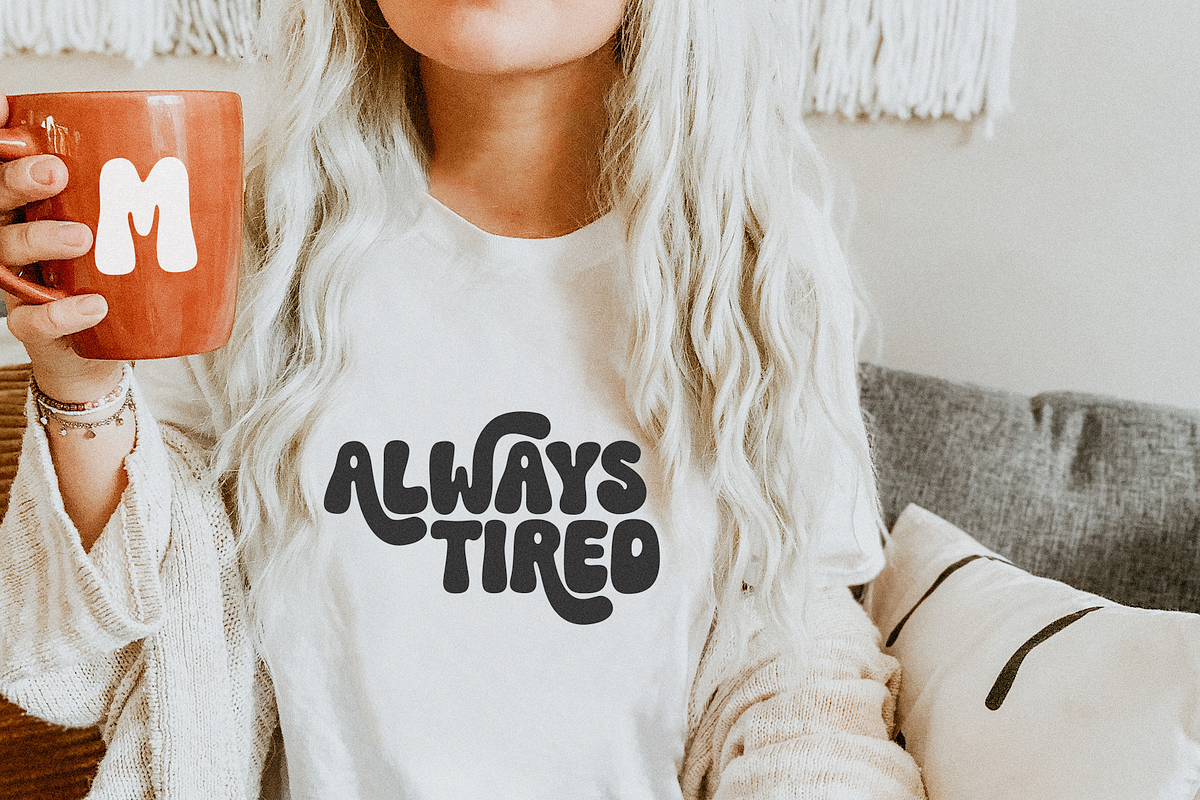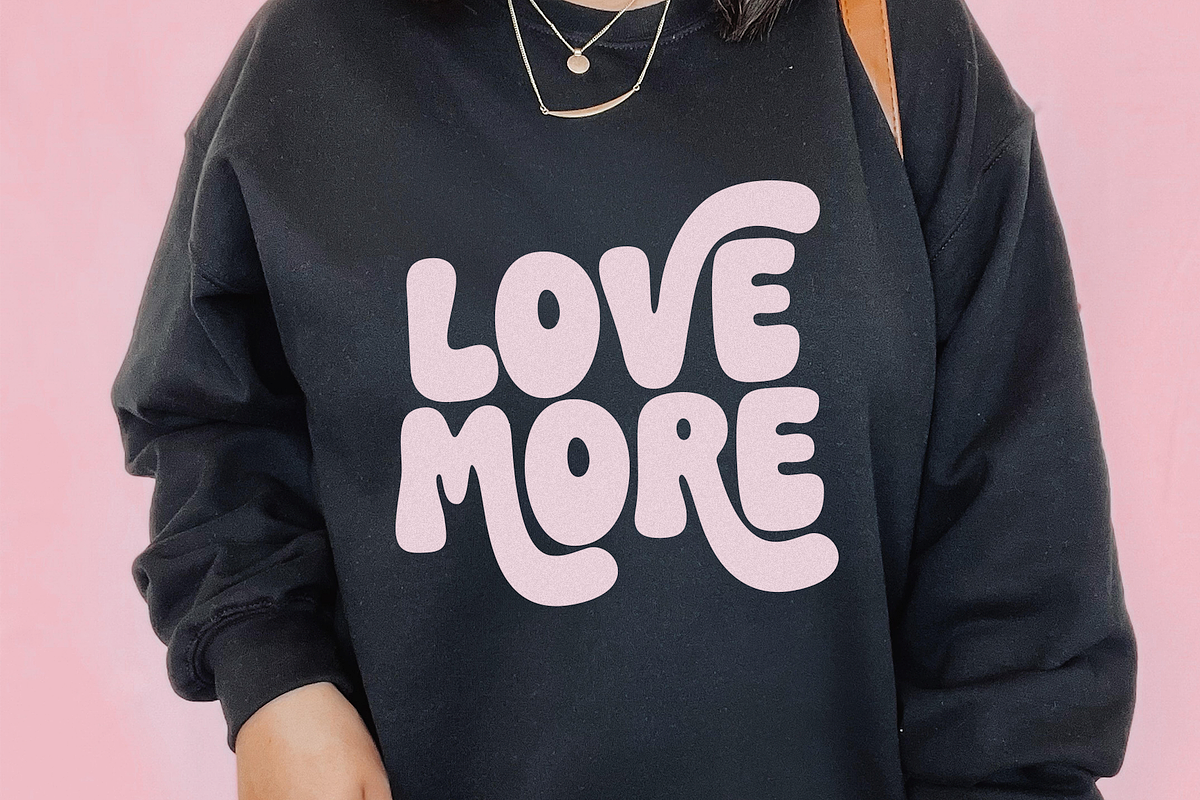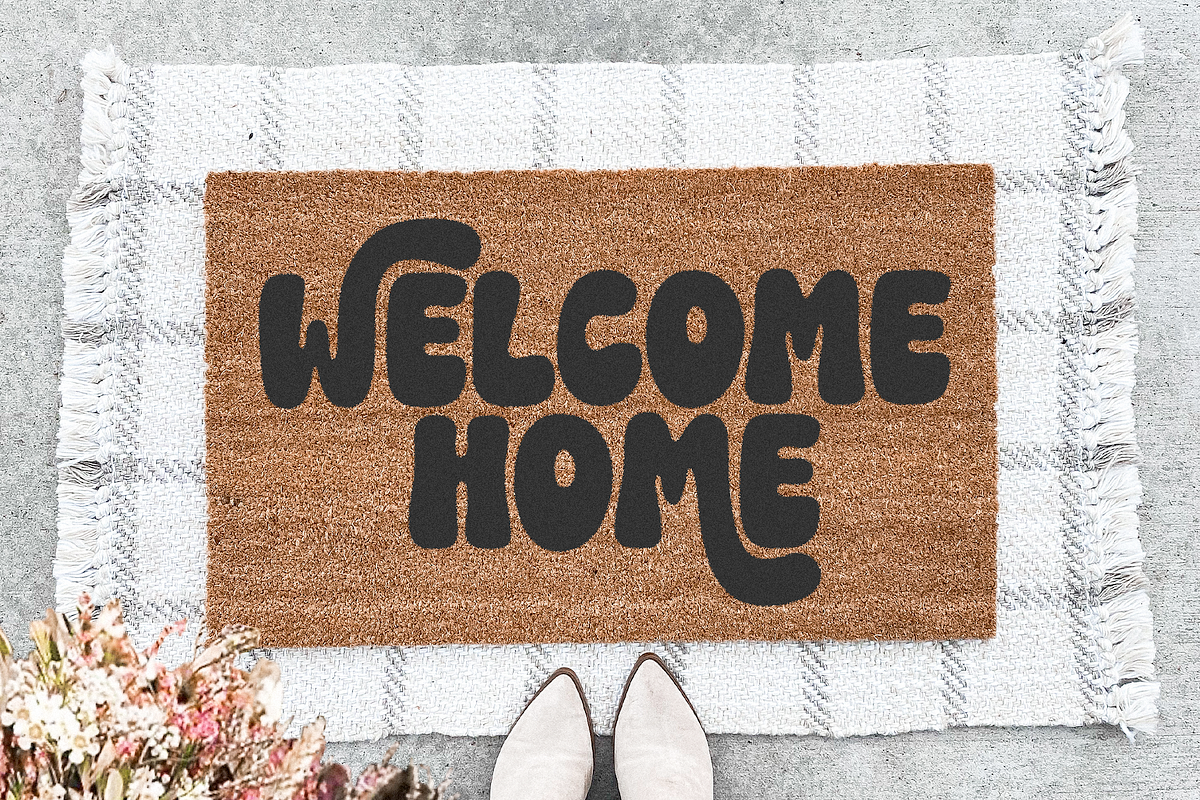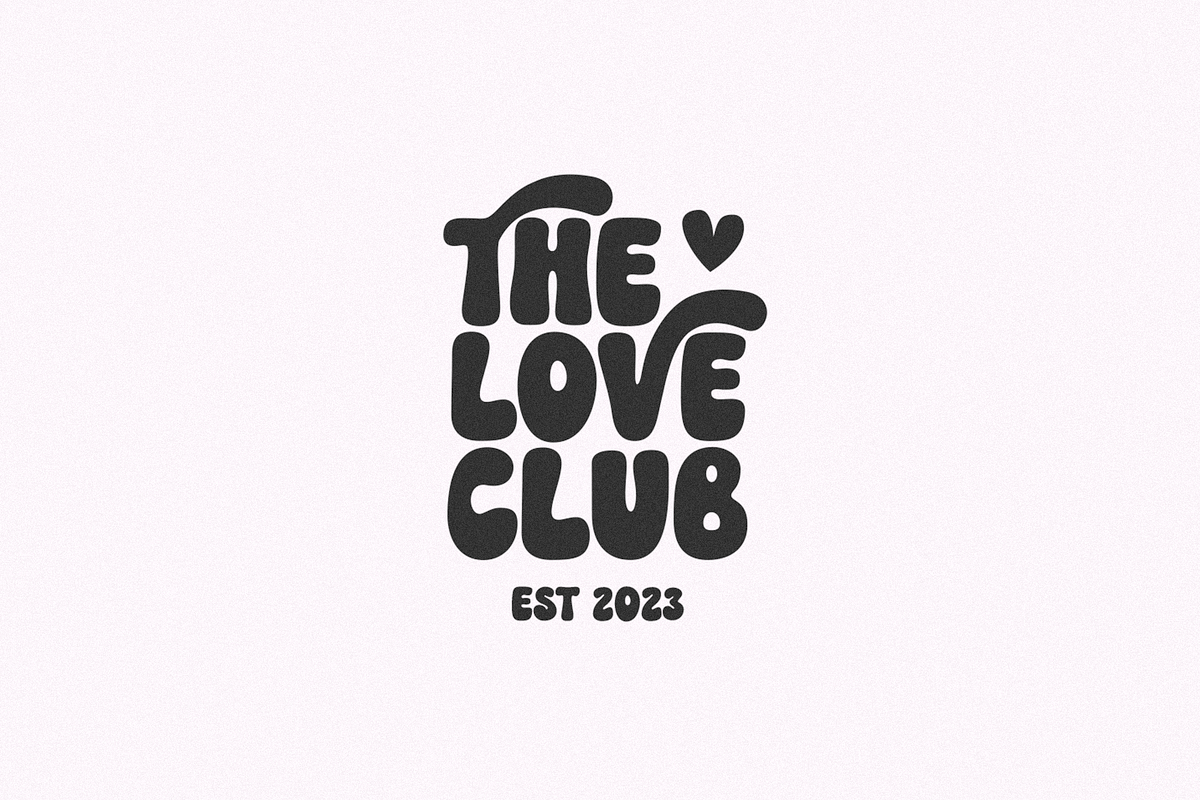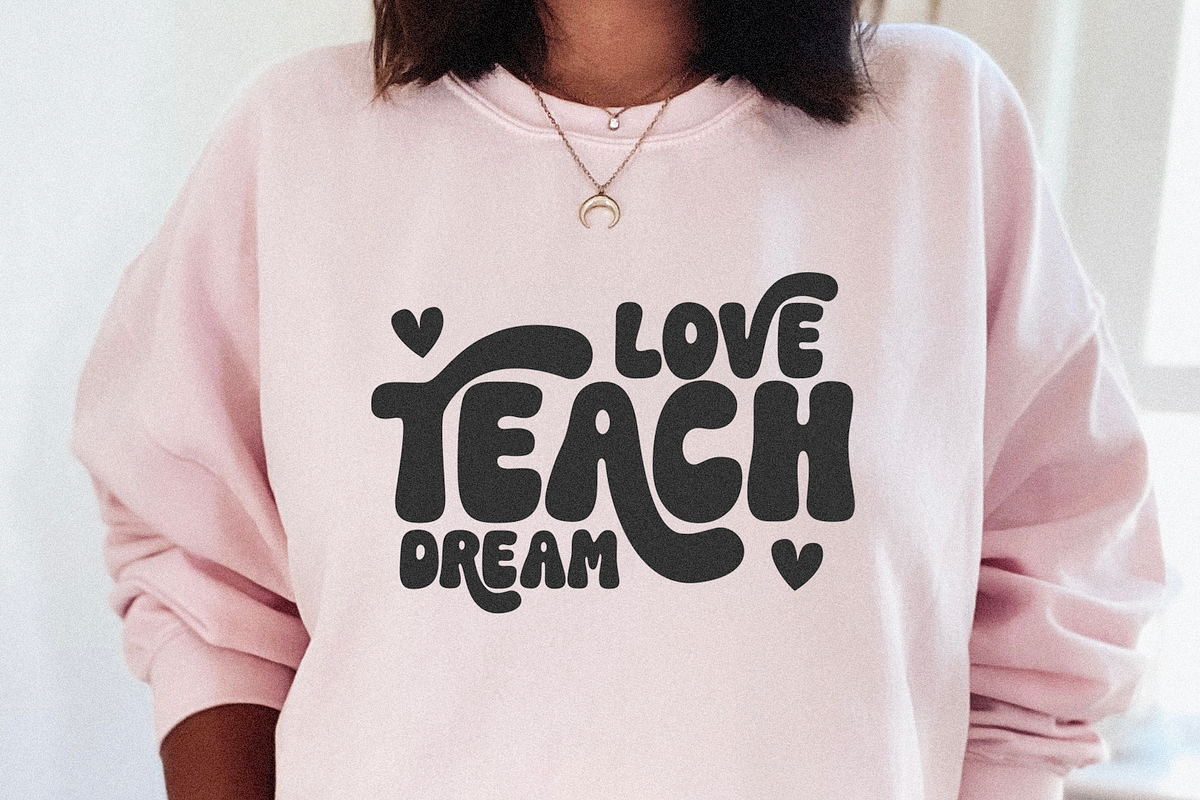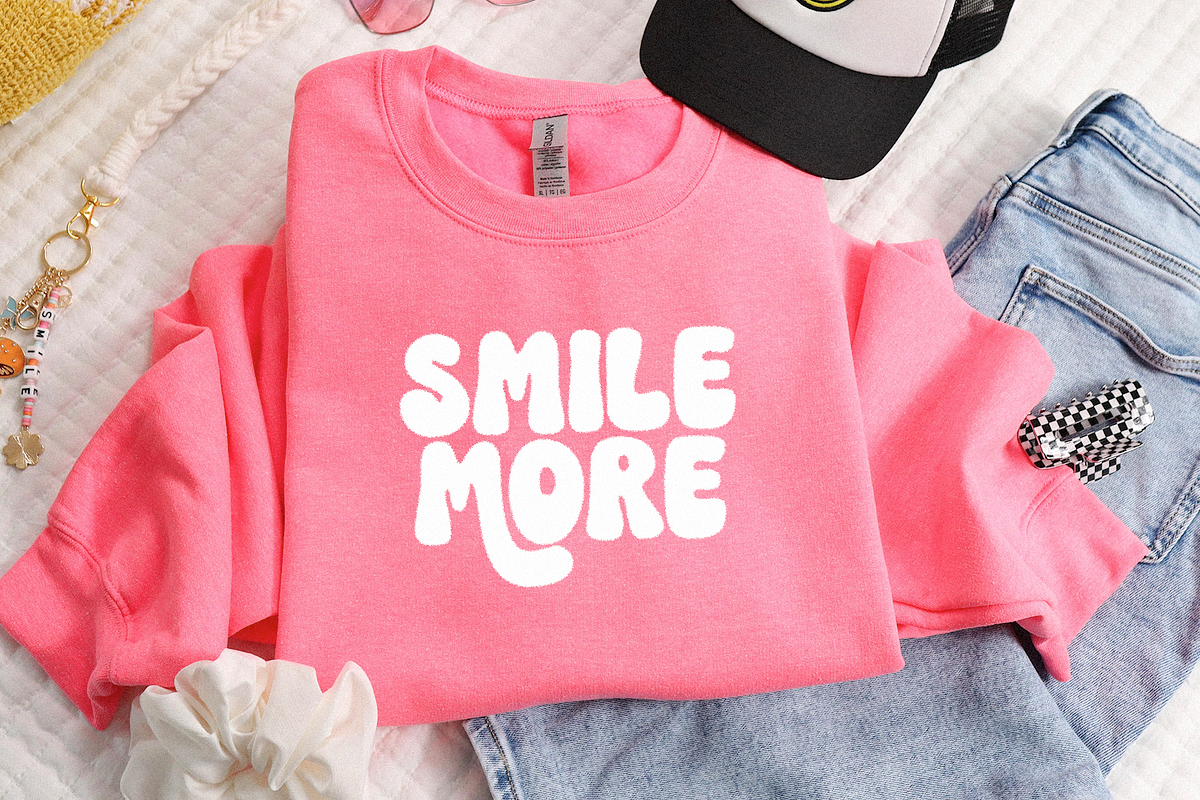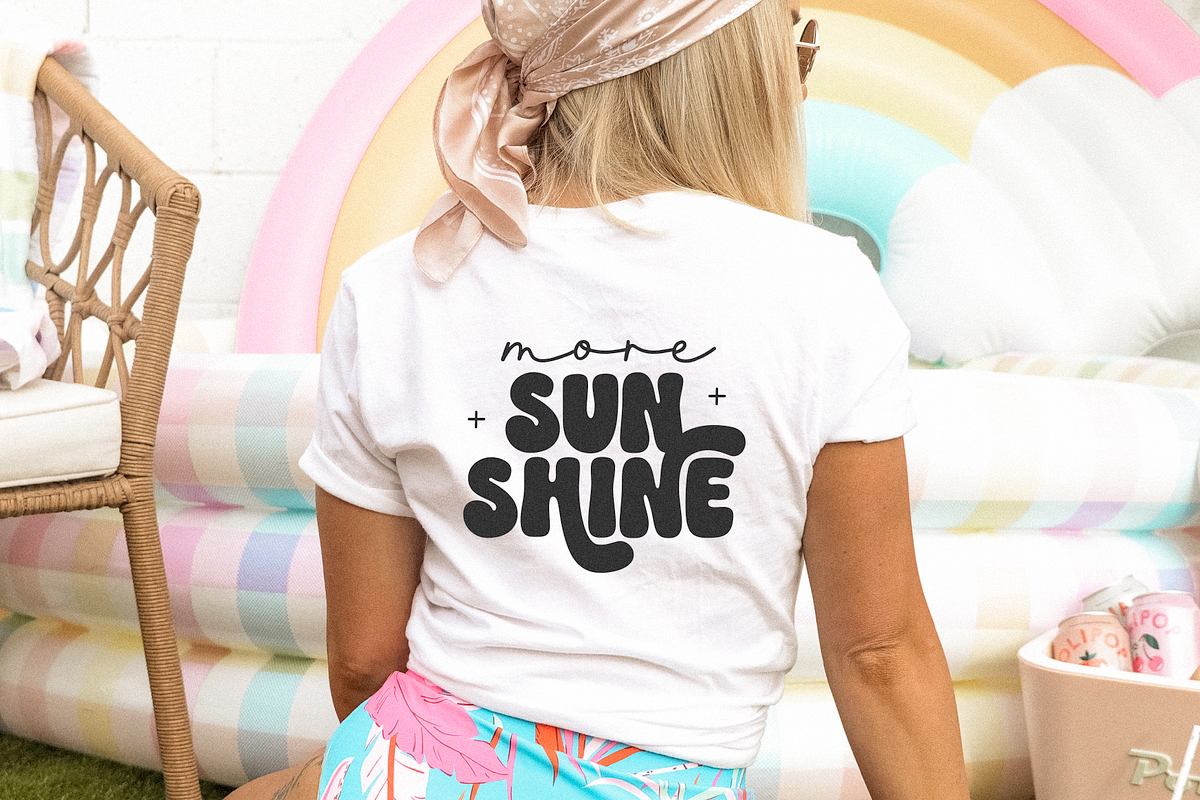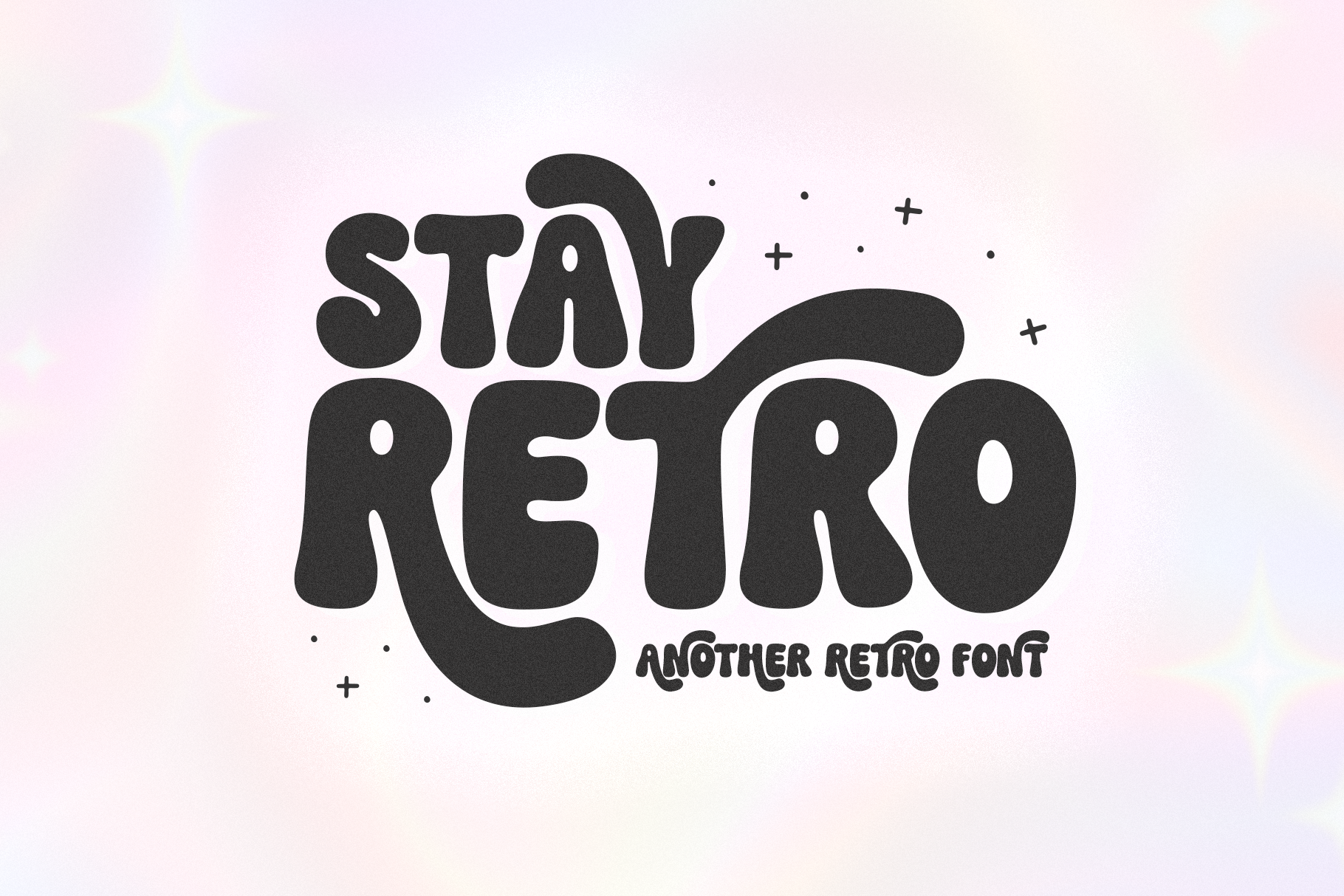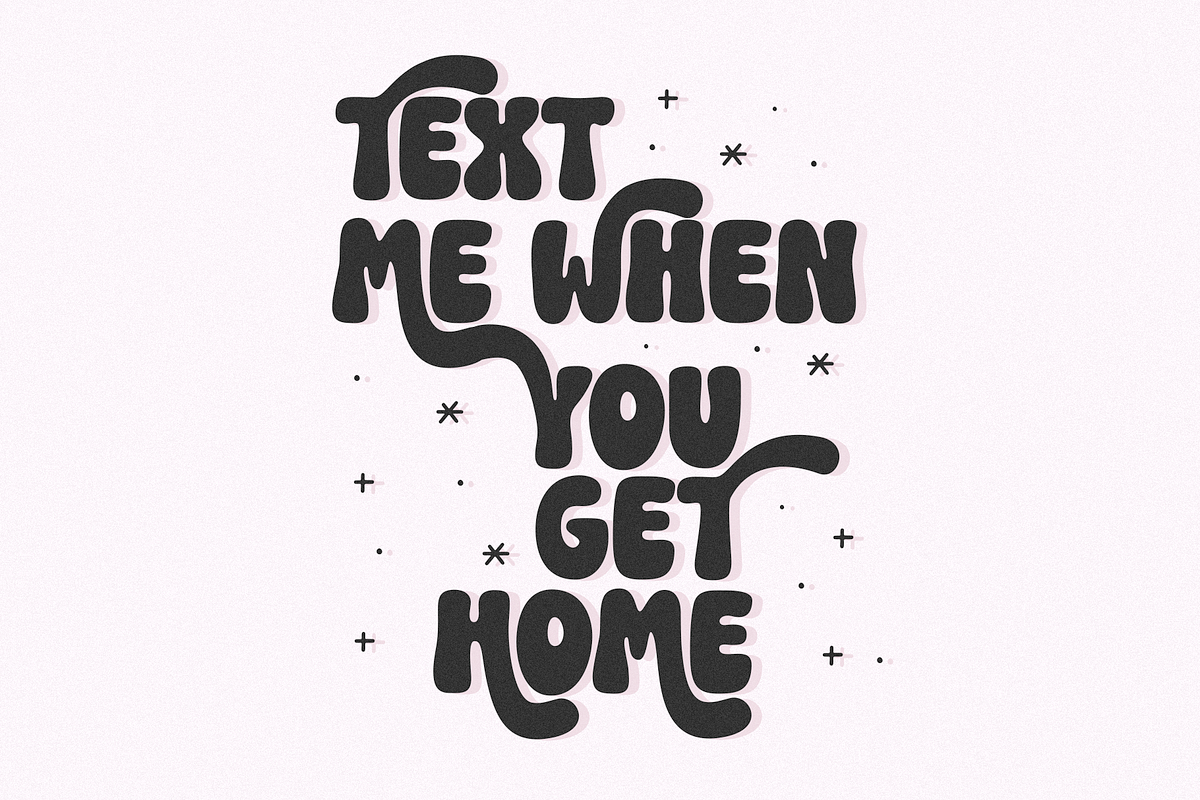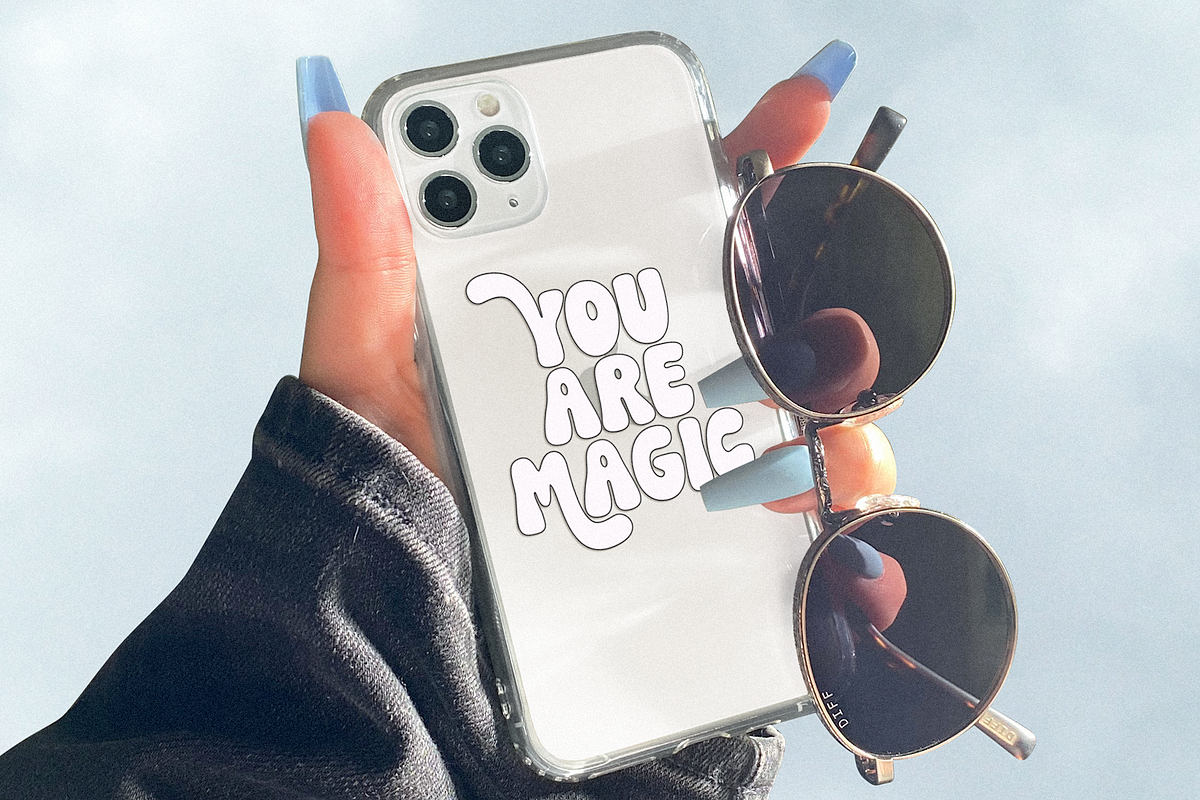
Stay Retro | Retro Swash Font
Stay Retro is a hand-drawn font with a groovy feel!
This is an ALL CAPS font
Use lowercase letters for swash letters - a, h, k, m, n, r, t, v, w, y
This font is perfect for your retro designs, svg designs, shirts, mugs, stickers, procreate, logos and more!